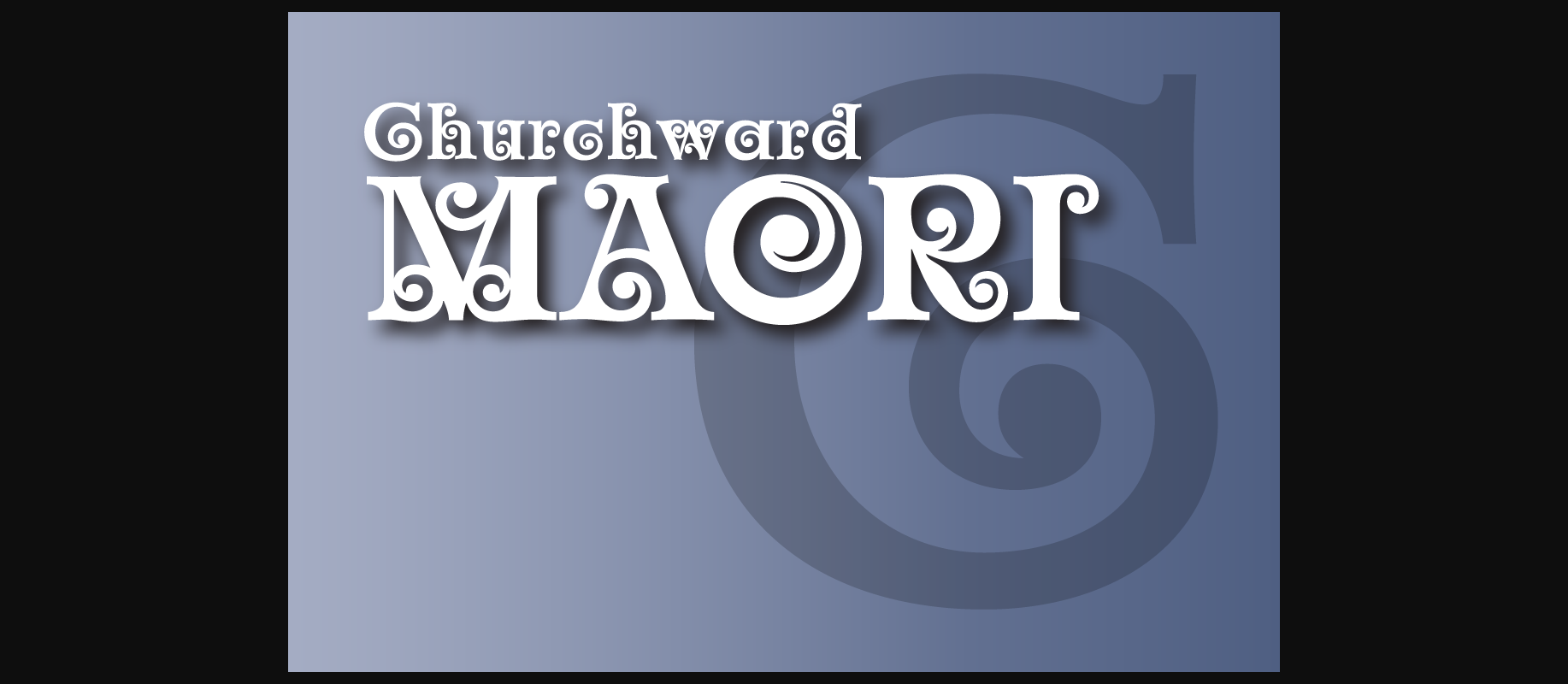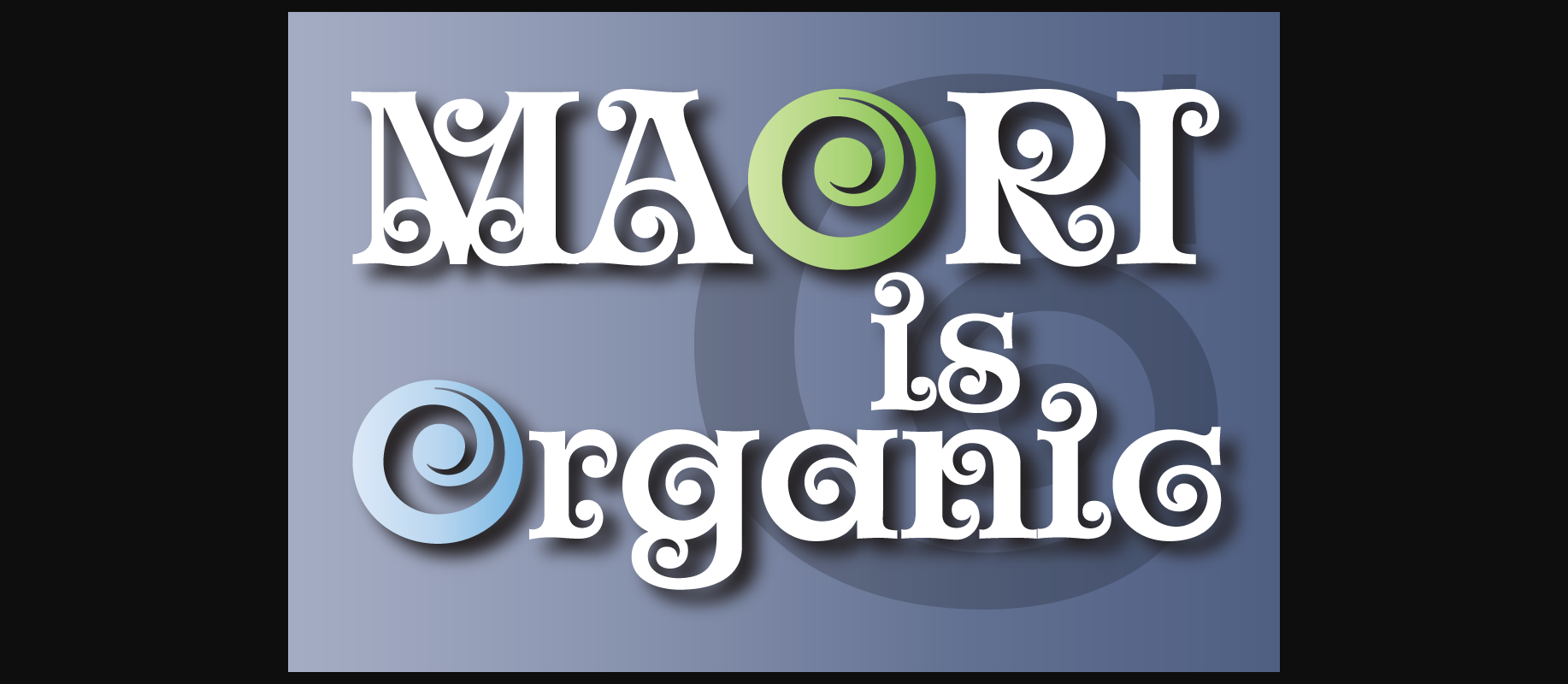
Churchward Maori Font
About Churchward Maori Font
Churchward Maori is one of a series of Maori style typefaces designed the late Joseph Churchward.
The typeface infuses standard Latin glyph forms with traditional Maori decorative elements to create a wildly organic design. We expanded the character set to support standard Latin character sets. If you’re interested in other Maori style fonts, then check out Churchward Ta Tiki.